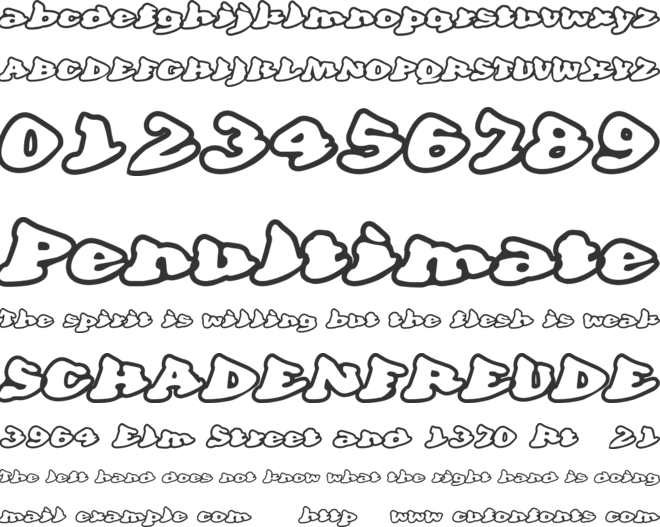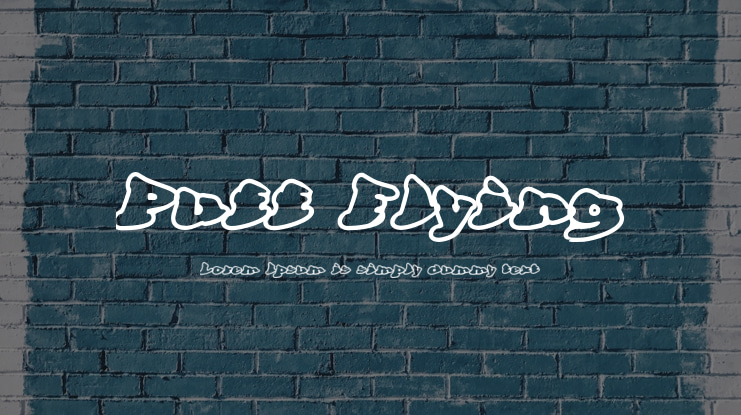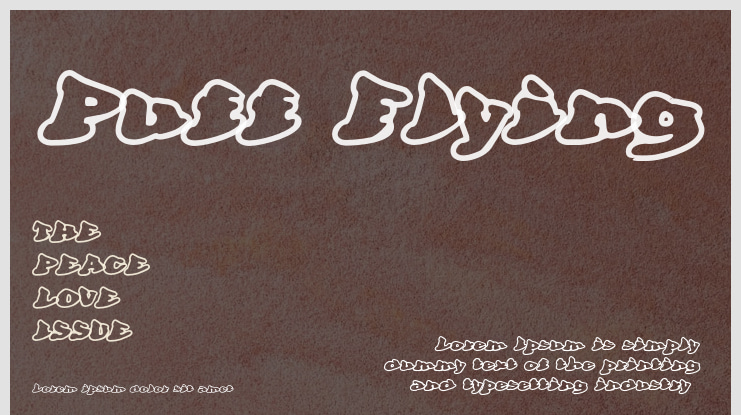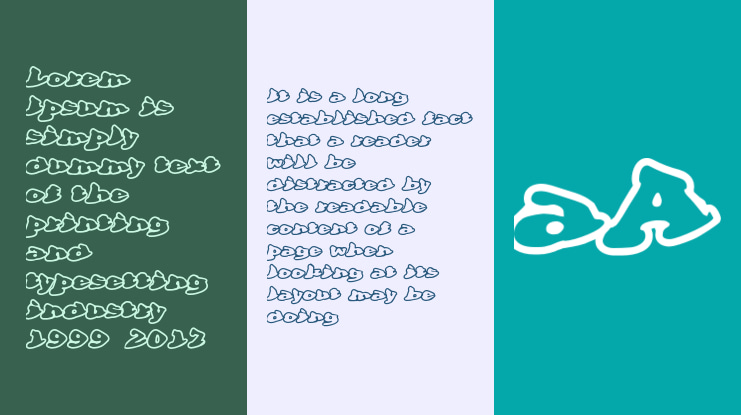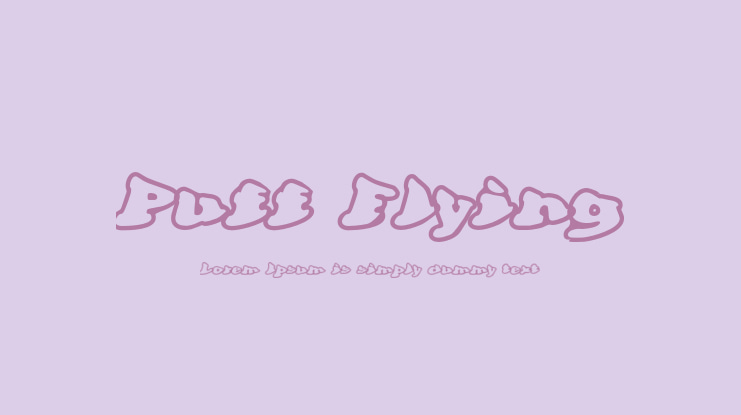
Puff Flying Font is a fun and light-hearted typeface that feels like it's floating in the air. The soft, rounded letters bring a happy and playful look to your designs. This font is perfect for all kinds of creative projects, from kids' crafts to party invitations. Whether you're creating posters, greeting cards, or book covers, Puff Flying will make your words stand out in a cheerful and friendly way. You can also use it for social media posts, school projects, or even scrapbooking. No matter what you’re designing, Puff Flying Font adds a touch of joy and lightness to every project. Let your ideas take flight with this delightful font!